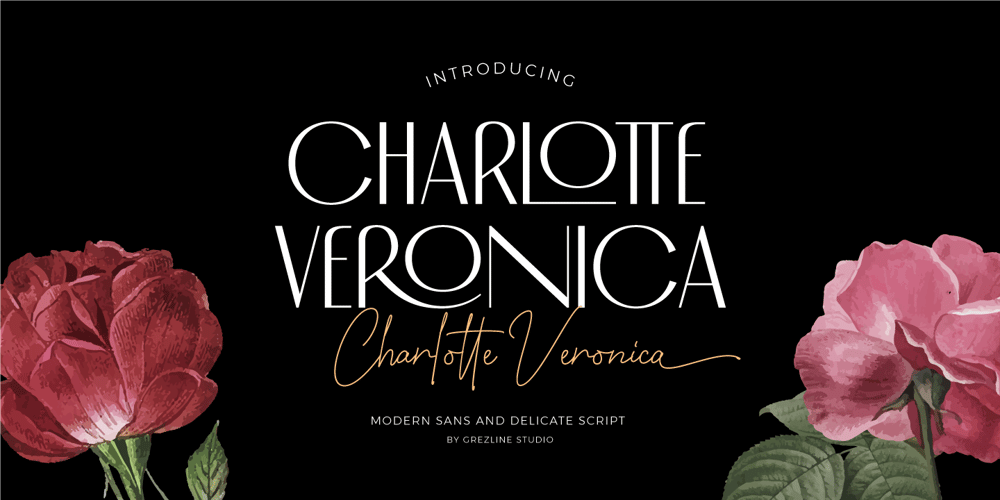
Charlotte Veronica Font Family was designed by Akhmad Reza Fauzi and published by Grezline Studio. Charlotte Veronica contains 3 styles and family package options. Charlotte Veronica is a display font crafted for fashion design needs. This font family consists of modern sans serif and delicate script, play and combine them to come up with a unique design!Charlotte Veronica is also usable in a wide range of works such as invitations, labels, logos, magazines, books, greeting / wedding cards, packaging, stationery, novels, labels or any type of advertising purpose. Feature :- Alternates & Ligatures – Multilingual Language- Works on PC & Mac- Simple installations- Accessible in the Adobe Illustrator, Adobe Photoshop, Adobe InDesign, even works on Microsoft Word.Thank you!Grezline Studio – Akhmad Reza Fauzi